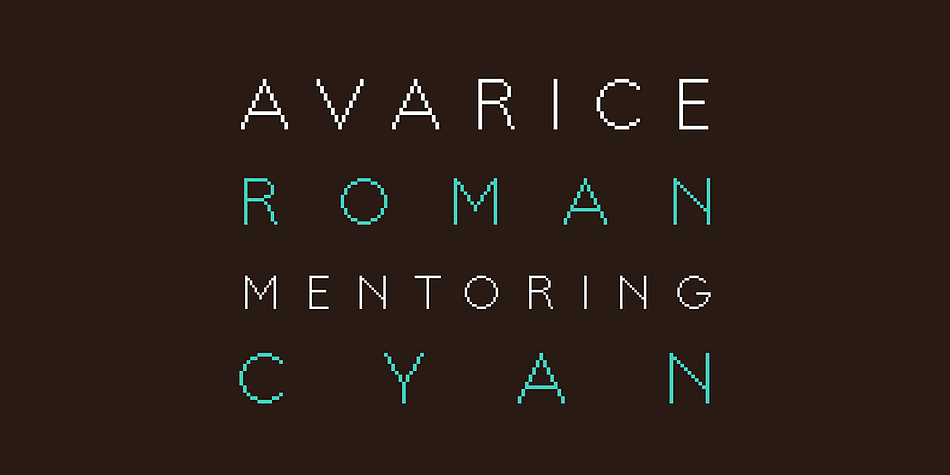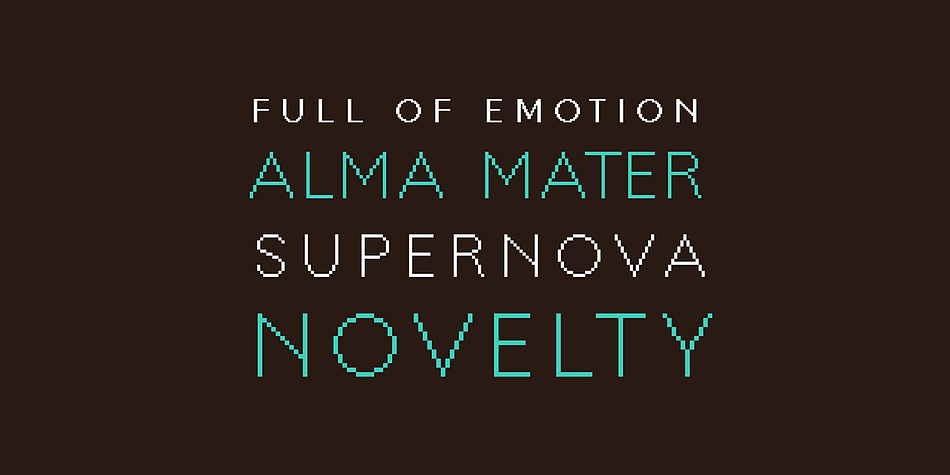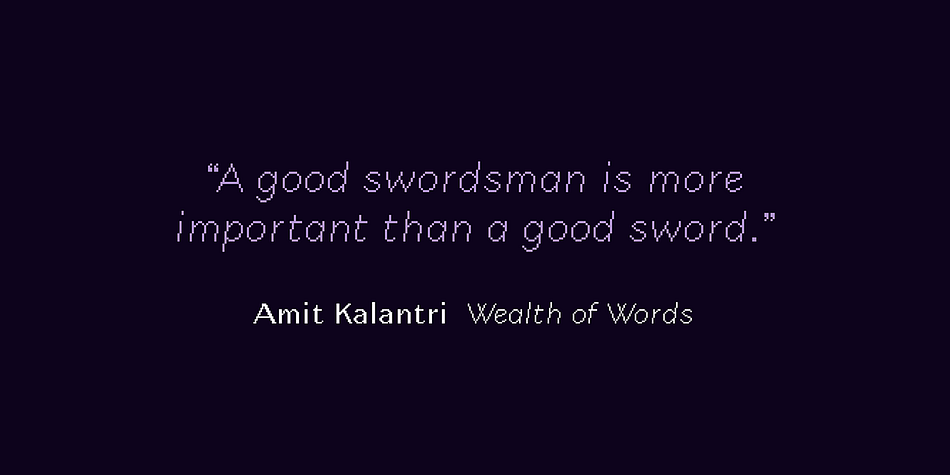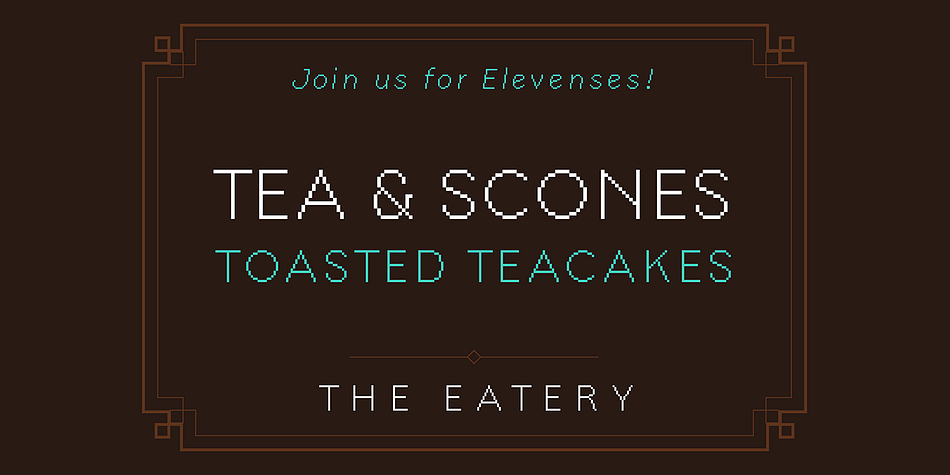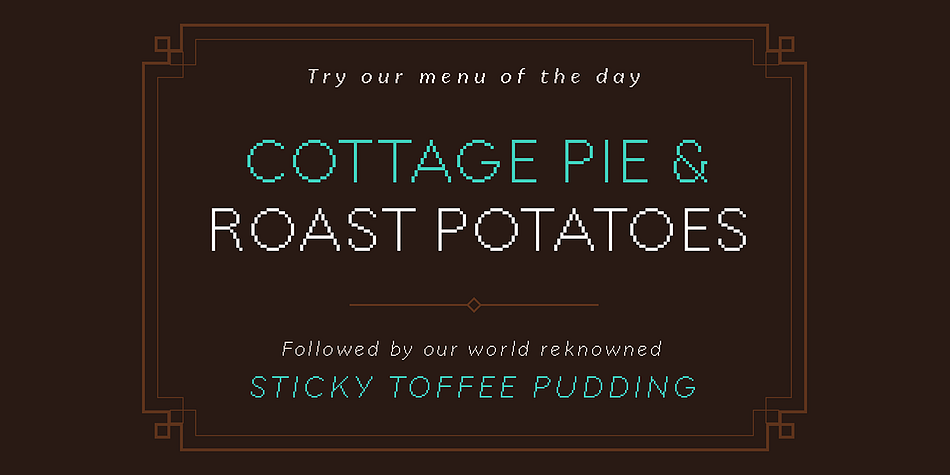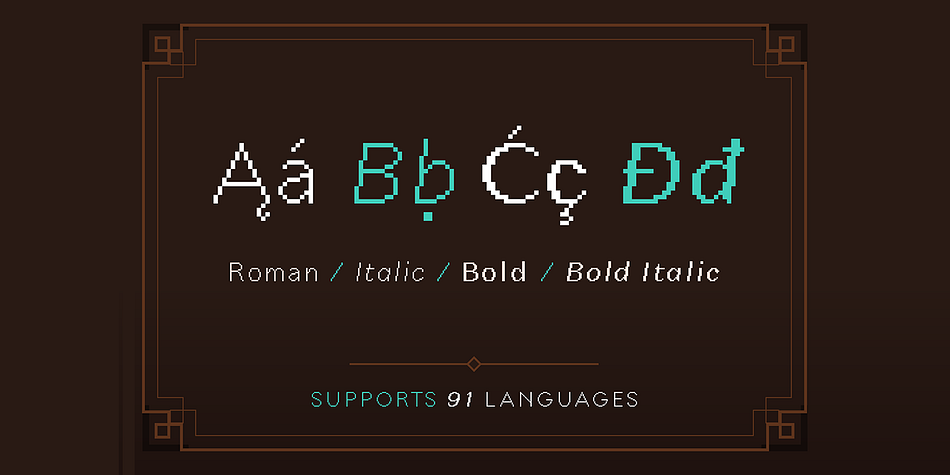
SB Troutbeck
Designed by Craig Stainton, SB Troutbeck is a pixel font family. This typeface has four styles and was published by SelfBuild Type Foundry.
A clasic sans-serif rendered as a pixel font. Comes as set of four fonts including italics.
• 4 fonts: Regular, Italic, Bold and Bold Italic.
• Supports 91 languages.
• Each font contains 440+ glyphs.